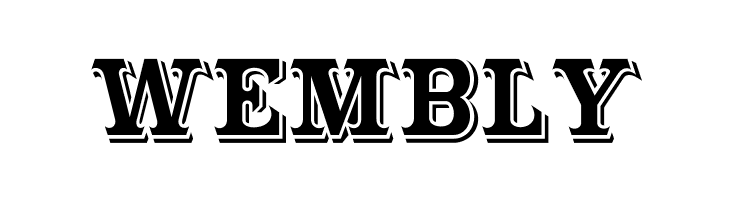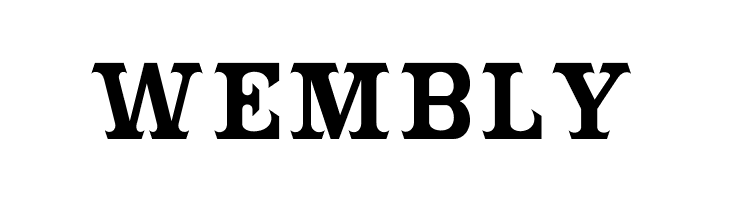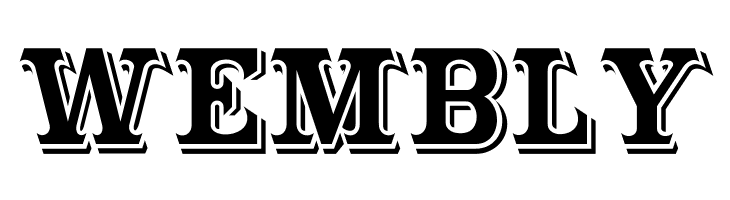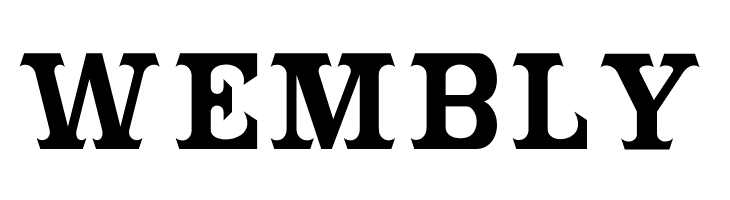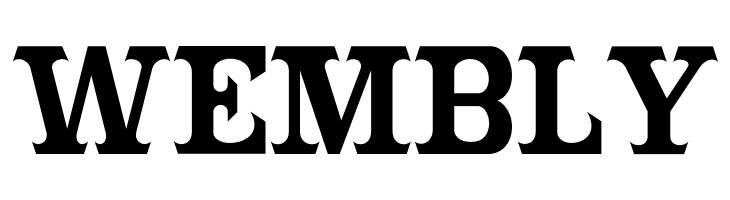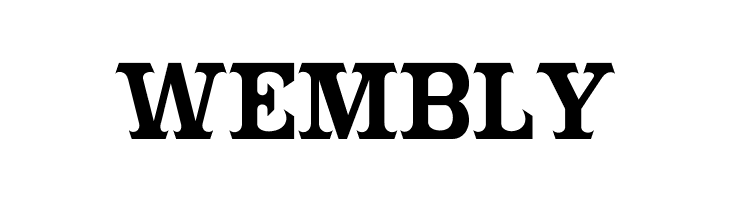
CabbagetownStd Font
A bold, decorative font with a three-dimensional effect and pronounced serifs.
CabbagetownBookStd Font
A bold serif font with high contrast and strong, classic design elements.
CabbagetownSmCapsStd Font
A bold, classic serif font with high contrast and strong serifs.
Cabbagetown Font
A bold, decorative font with a three-dimensional shadow effect and prominent serifs.
CabbagetownSmCapsNano Font
A bold, classic serif font with strong strokes and vintage charm.
CabbagetownBookNano Font
A bold, classic serif font with strong vertical lines and pronounced serifs.
CabbagetownBookMicro Font
A bold, classic serif font with strong, prominent strokes.
CabbagetownSmCapsMicro Font
A bold, classic serif font with strong, well-defined characters.
CabbagetownSmCaps Font
A bold serif font with a vintage yet modern appeal, perfect for impactful headlines.
CabbagetownBook Font
A bold, high-contrast serif font with strong, authoritative strokes.
CabbagetownMicro Font
A bold, decorative font with a vintage, outlined style.
CabbagetownNano Font
A bold, decorative font with outlined characters for a three-dimensional effect.
CabbagetownStone Font
A bold, stencil-style font with geometric cutouts and an industrial feel.
CabbagetownStoneMicro Font
A bold, chiseled font with a three-dimensional stone-carved look.
CabbagetownStoneStd Font
A bold, stencil-style font with a modern and industrial look.
CabbagetownStoneNano Font
A chiseled, stone-like font with a bold, decorative style.